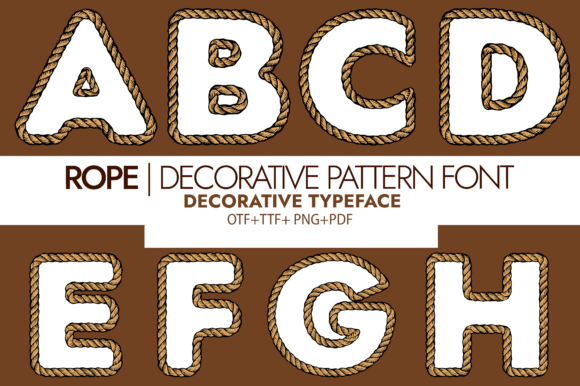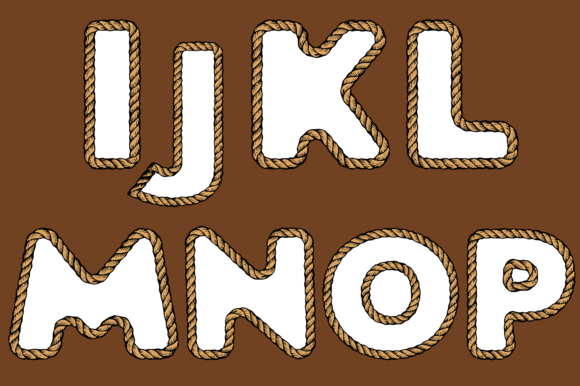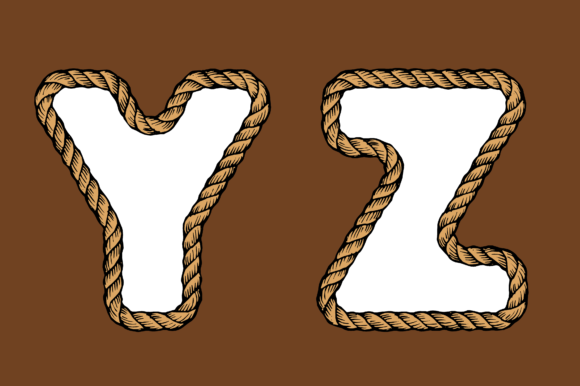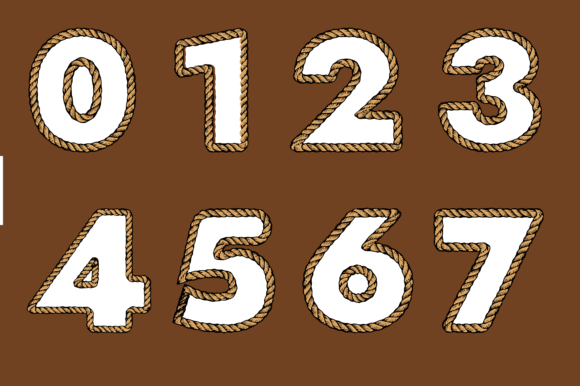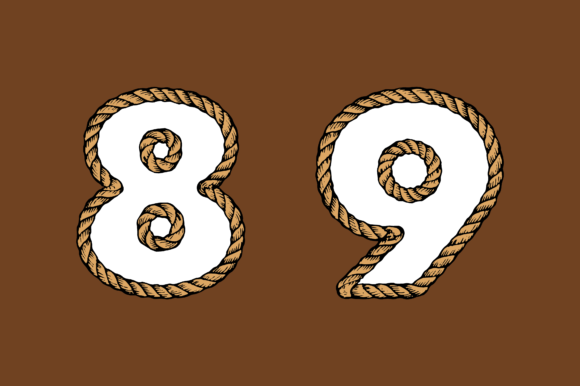
Rope Font
Rope is a fun and unique decorative font designed to help you generate rope-decorated capital letters and numbers. It is a wonderful choice for many creative ideas and crafts!